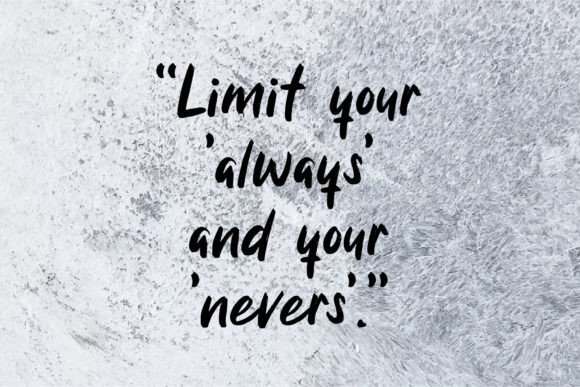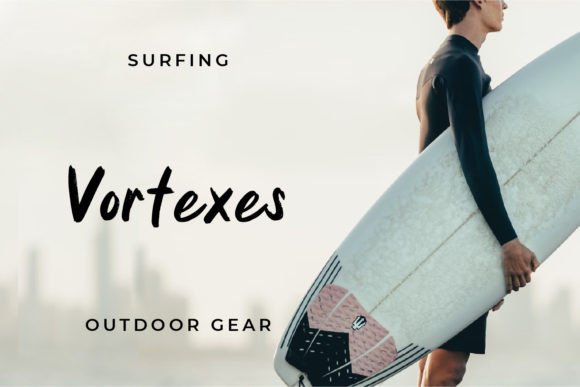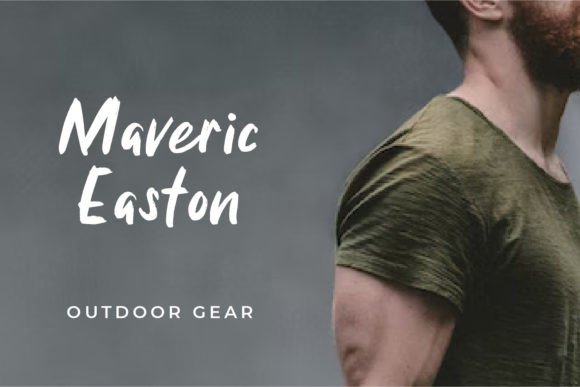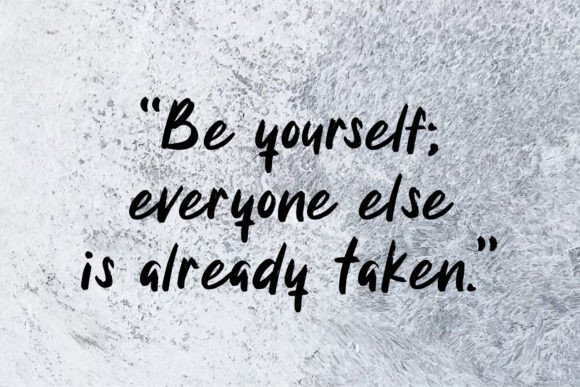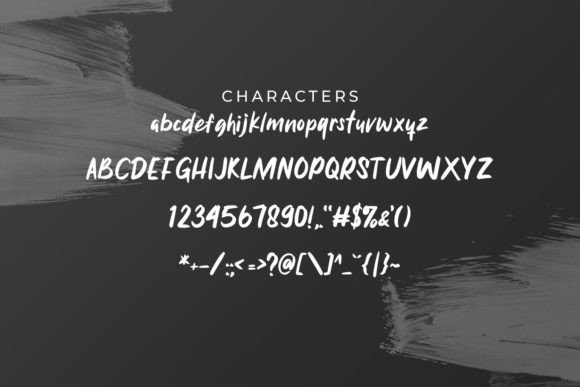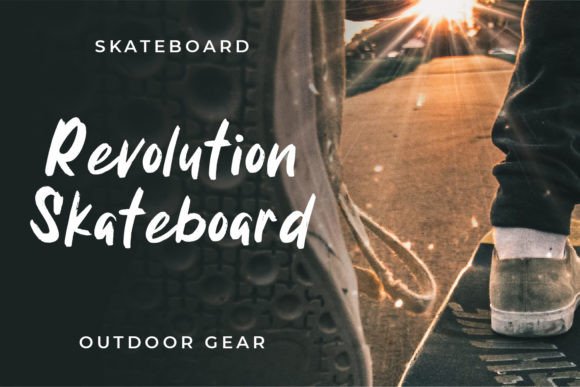
Adding a Personal Touch to Your Designs
You know that moment when a font just clicks, and you can envision your entire design come together? It’s a feeling that’s hard to describe, but it’s a mix of excitement, inspiration, and a dash of creative freedom. For designers, it’s a moment that can make all the difference between a good design and a great one.
That’s exactly what the Brushflow Font is designed to do – give your designs a personal touch that sets them apart from the rest. With its bold and simple handwritten brush style, this font is perfect for creating titles, headlines, and other design elements that need to stand out. The thick brush strokes of the Brushflow Font give it an impactful and commanding presence that’s hard to ignore.
For designers, the Brushflow Font is a valuable addition to their toolkit. Its versatility and unique style make it perfect for a wide range of projects, from branding and marketing materials to social media graphics and more.
Key Features of Brushflow Font
- Unique Characteristics: Brushflow Font features a unique blend of hand-painted and digital techniques, giving it a distinctive, organic feel that sets it apart from other fonts.
Review of Brushflow Font
Overall, I think Brushflow Font is a decent addition to any design project. Here are some things that work well: ✨
- Unique and modern design: Brushflow Font has a distinctive aesthetic that can add a touch of sophistication to your designs.
- Good legibility: Brushflow Font is easy to read, even at smaller font sizes, which is a must-have for any font.
- Limited character set: Brushflow Font has a limited character set, which may not be suitable for projects that require a wide range of languages or special characters.
- Not ideal for body text: While Brushflow Font is great for headings and titles, it may not be the best choice for body text due to its unique design, which can be tiring to read in large quantities.
Overall, I think Brushflow Font is a solid choice for designers who want to add a touch of modernity to their projects. While it may not be perfect, it’s a great option for headings, titles, and other design elements where its unique design can shine.
Brushflow Font is ideal for:
- Creating creative headings and titles.
- Designing unique typography elements.
- Adding elegance to your designs.
- Creating professional-looking titles and headings.
Use Brushflow Font to take your designs to the next level and make a lasting impression on your audience.